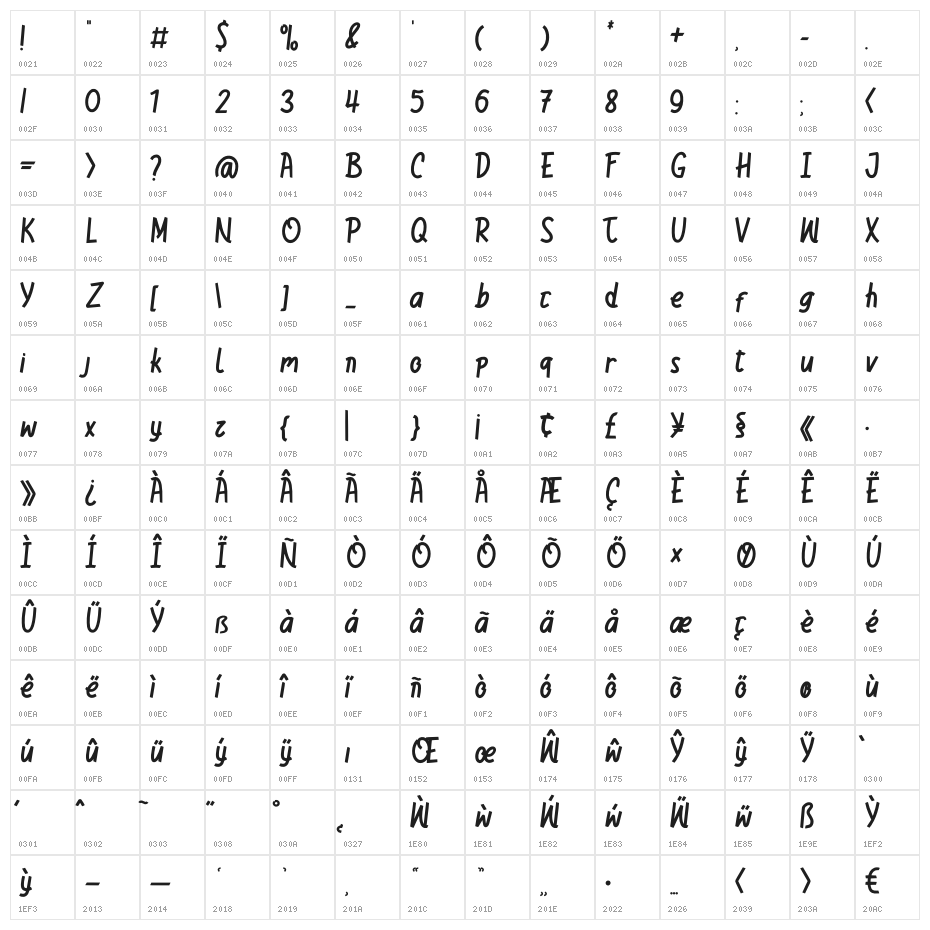
de Solidia Font
de Solidia Description
This font features a playful and dynamic handwritten style, characterized by its bold and slightly irregular strokes. The letters exhibit a casual, informal appearance with a slight slant, adding to its energetic feel. The uppercase letters are bold and prominent, while the lowercase letters maintain a consistent flow with rounded edges. The numbers and special characters follow the same lively style, making the font versatile for various creative applications. Its unique personality makes it stand out, perfect for projects that require a touch of whimsy and creativity.
| Use Case | Headlines, Logos, Creative projects |
| Proposed Projects | Ideal for greeting cards, children's books, playful branding, and creative posters. |